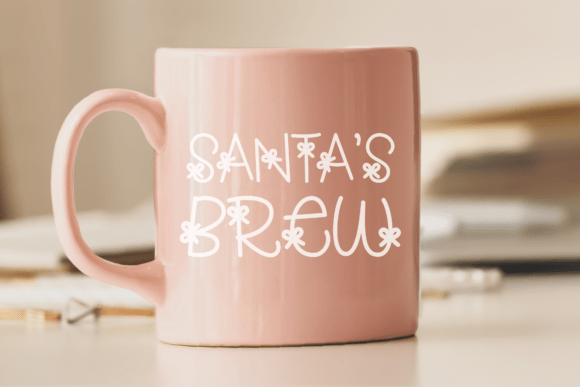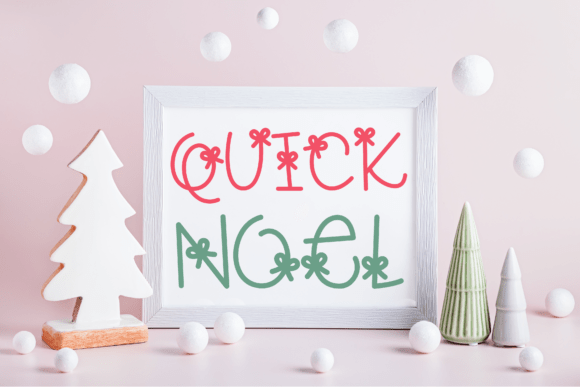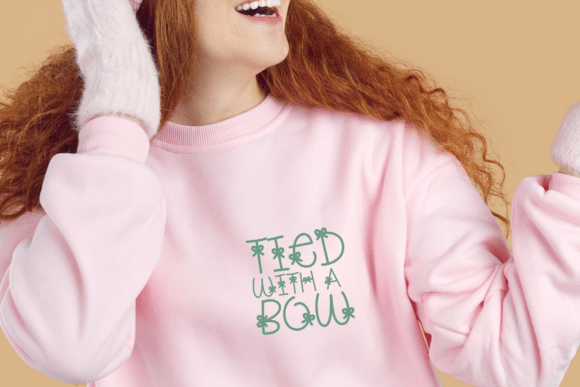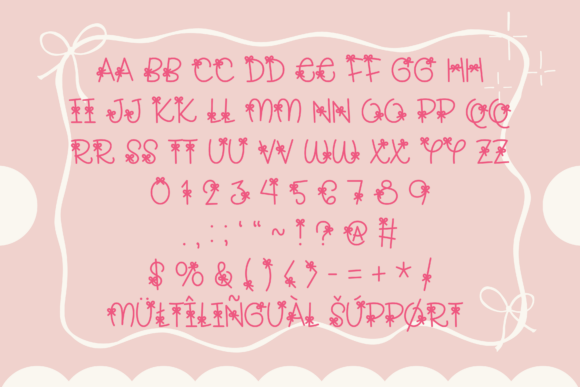
Introduction to Jinglebows Font
Do you remember the excitement of crafting handmade gift tags and party invitations as a child? The joy of adding a personal touch to a special occasion is a feeling that never gets old. As a designer, you’re always on the lookout for the perfect font to capture the essence of a celebration. That’s where Jinglebows Font comes in – a delightful and whimsical display font that’s sure to bring a smile to your face.
With its charming bow motifs and subtle ribbon-loops, Jinglebows Font is the perfect addition to any creative project. Whether you’re designing festive branding, gift packaging, or sweet greeting cards, this font is sure to add a touch of magic. And the best part? Jinglebows Font is available for free download, making it a valuable resource for designers of all levels.
Whether you’re working on a high-quality design project or just need a fun font to spice up your social media posts, Jinglebows Font is a must-have in your design arsenal. With its transparent background and playful elegance, this font is sure to bring a cheerful touch to your work and leave a lasting impression on your audience.
Key Features of Jinglebows Font
- Unique, playful design ideal for creative projects, such as holiday cards, gift tags, or social media graphics.
- Includes a wide range of characters, including uppercase and lowercase letters, numbers, and punctuation marks, to support various languages.
- Perfect for adding a festive touch to your designs, with a fun and whimsical feel that’s perfect for the holiday season.
Honest Review: Jinglebows Font
As a designer, I’m always on the lookout for unique and high-quality design resources to elevate my creative projects. The Jinglebows Font is one such resource that caught my attention, and I’m excited to share my honest review with you.
What works well: ✨ The Jinglebows Font is a beautifully designed font that’s perfect for festive and holiday-themed projects. The font is available for free download, making it an excellent design resource for designers and artists on a budget. The transparent background feature allows for seamless integration with various design elements, making it a versatile choice for creative projects.
What doesn’t work well: ⚠️ While the Jinglebows Font is a great addition to any design arsenal, it may not be suitable for projects that require a more minimalist or serious tone. Additionally, the font’s playful and festive nature may not be ideal for corporate or formal designs.
- High-quality design that’s perfect for festive and holiday-themed projects
- Transparent background feature for seamless integration with various design elements
- May not be suitable for projects that require a more minimalist or serious tone
- Not ideal for corporate or formal designs
Overall, the Jinglebows Font is a fantastic design resource that’s perfect for designers and artists looking to add a touch of festivity to their projects. With its high-quality design, transparent background feature, and free download option, it’s an excellent choice for creative projects.